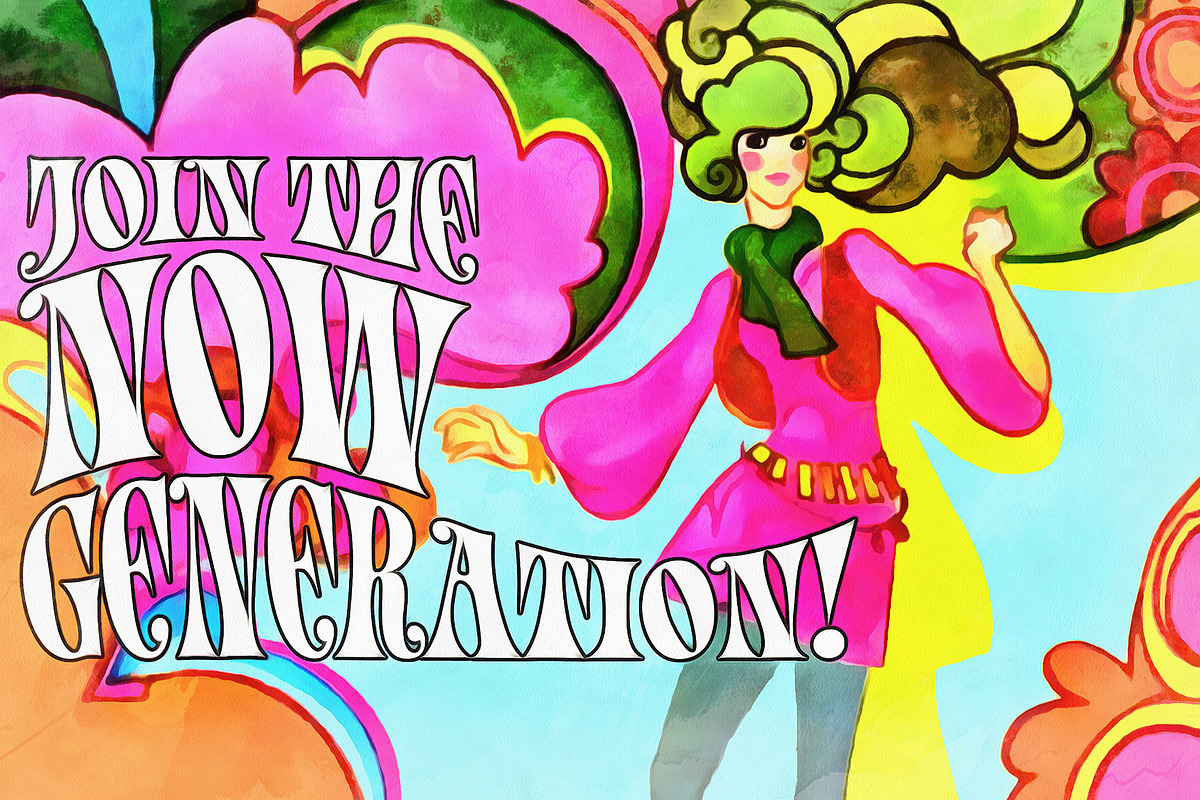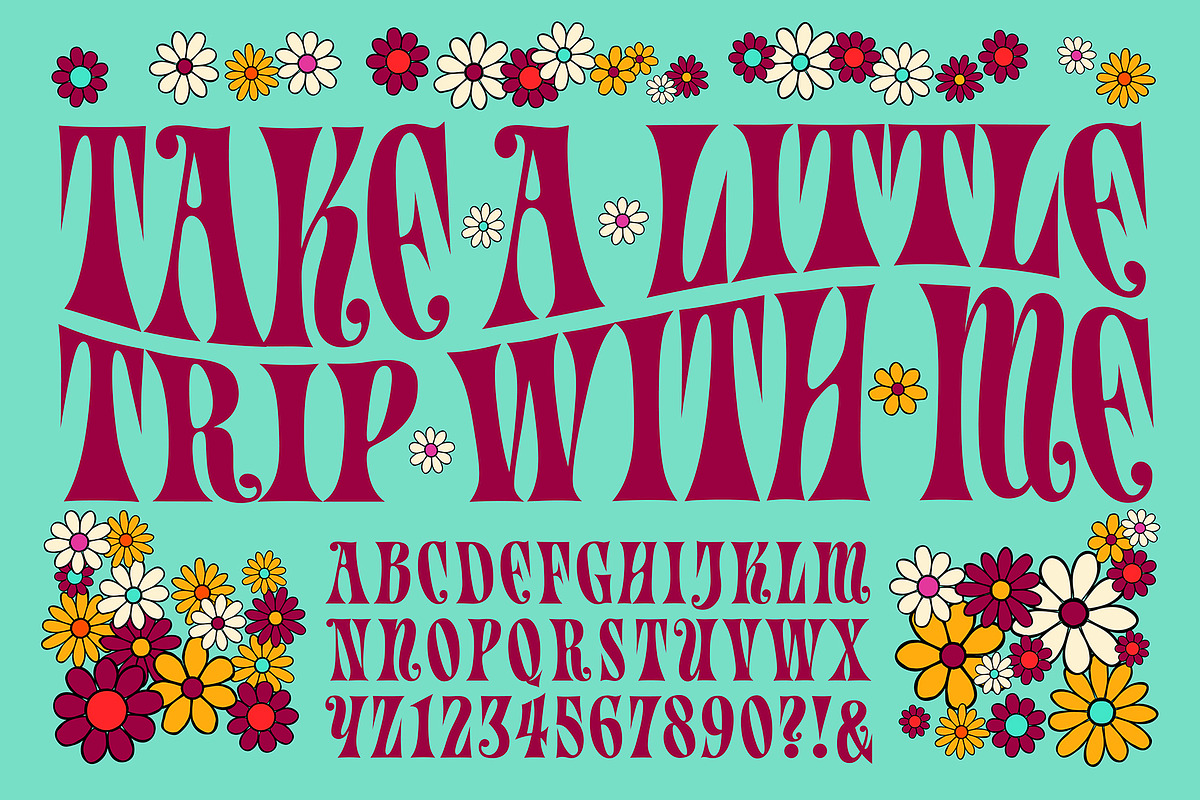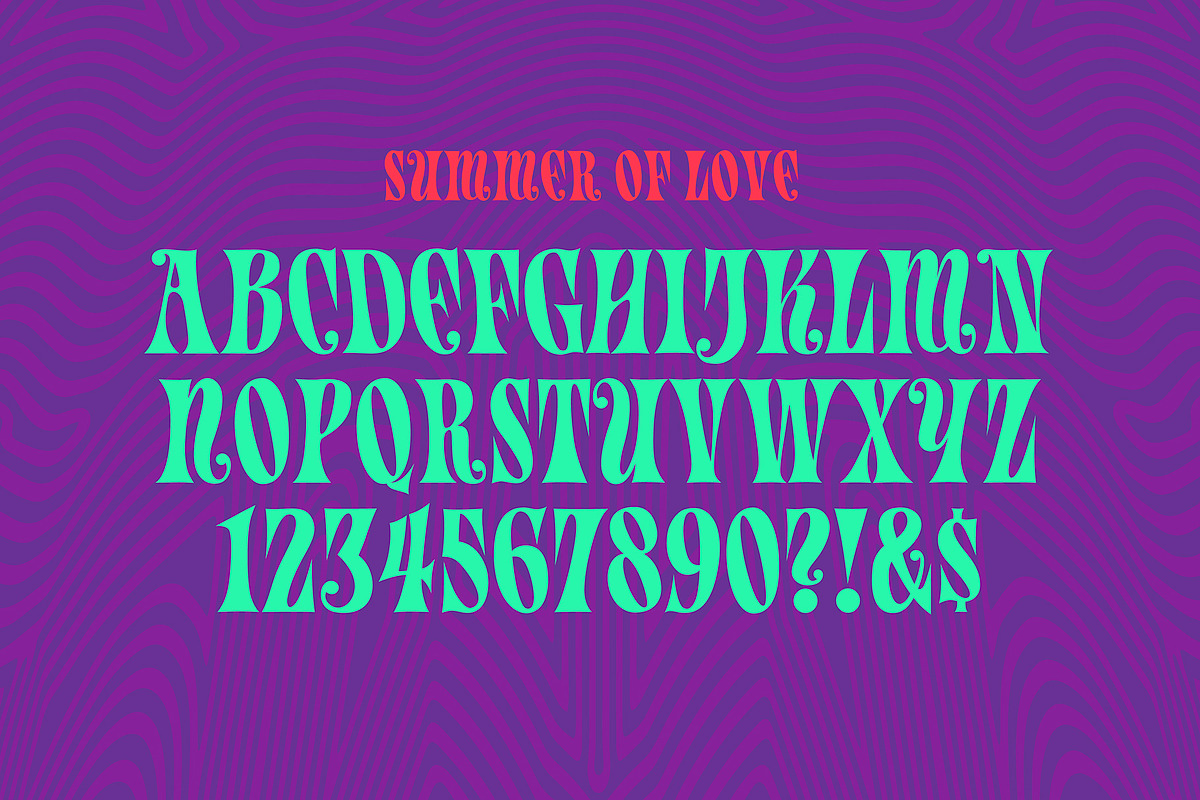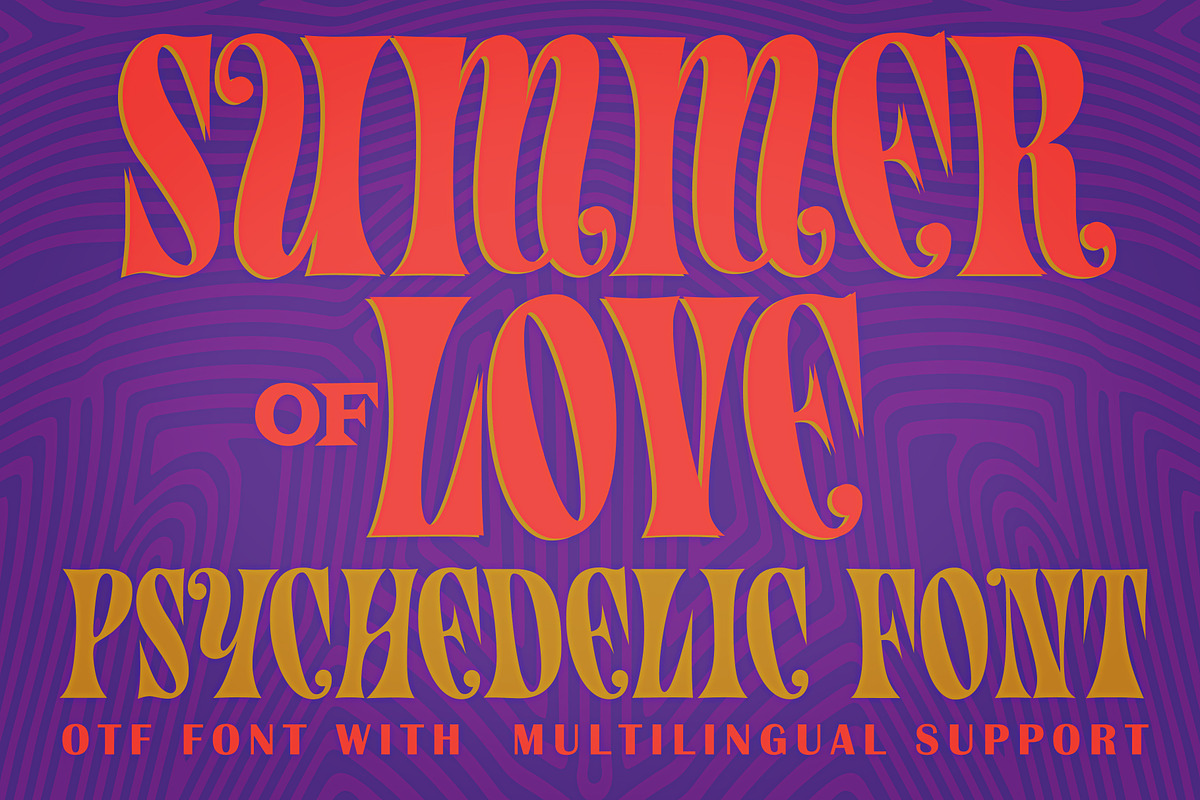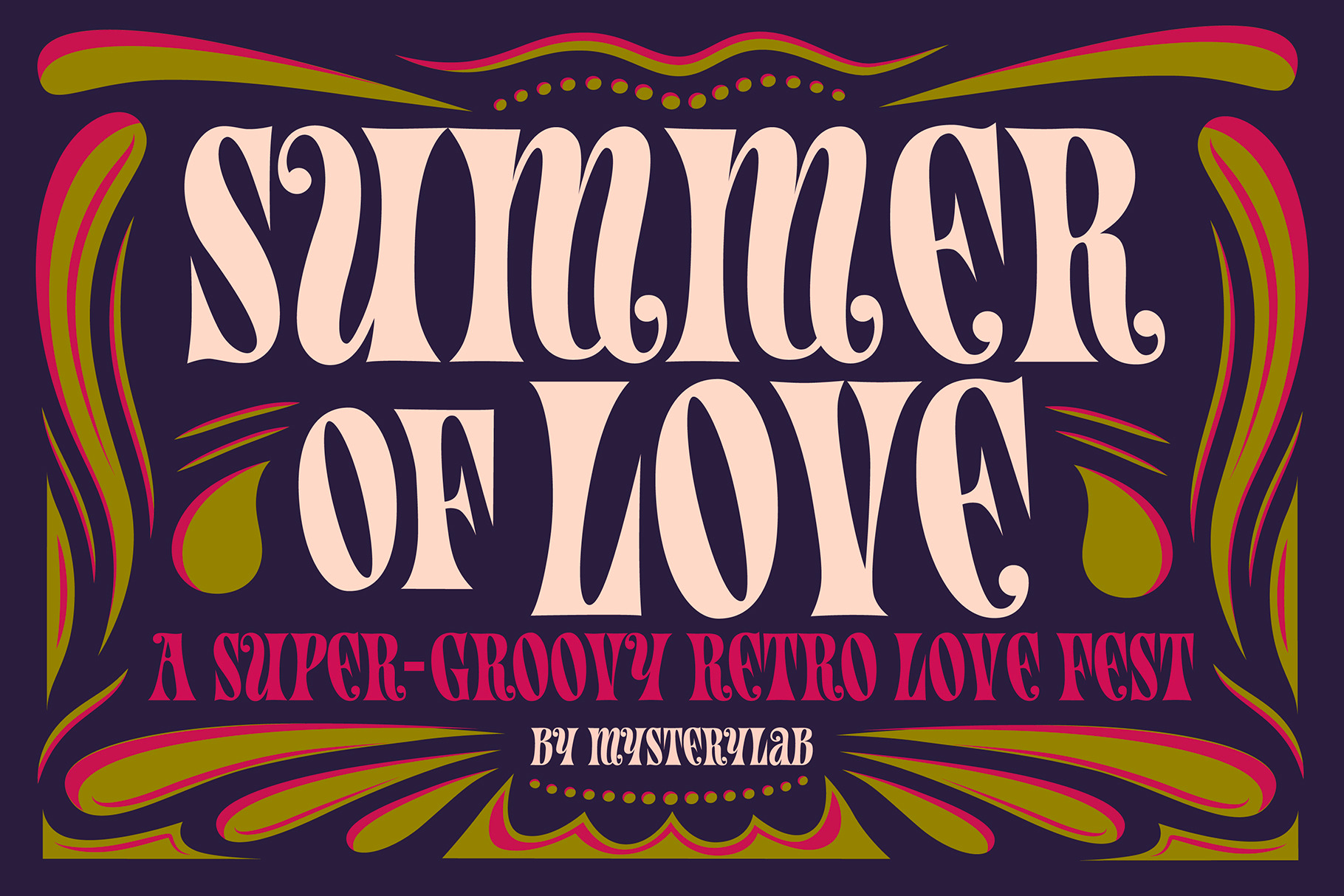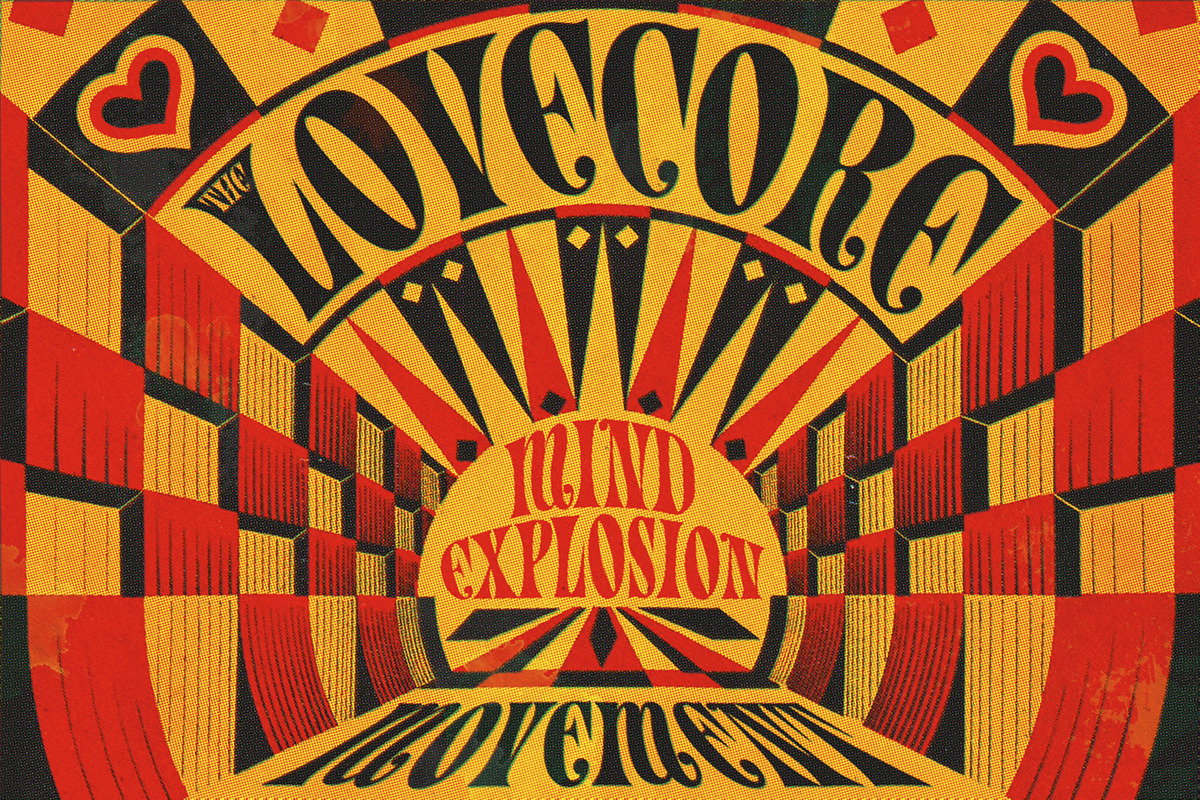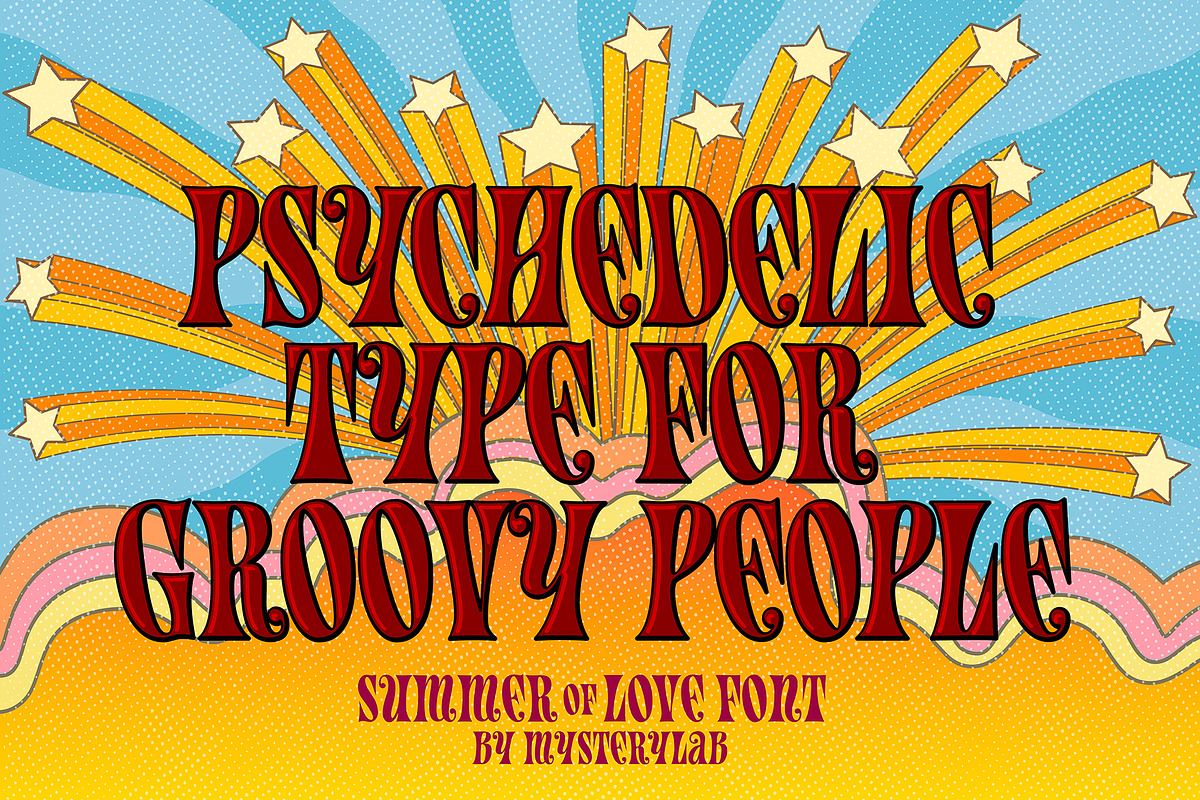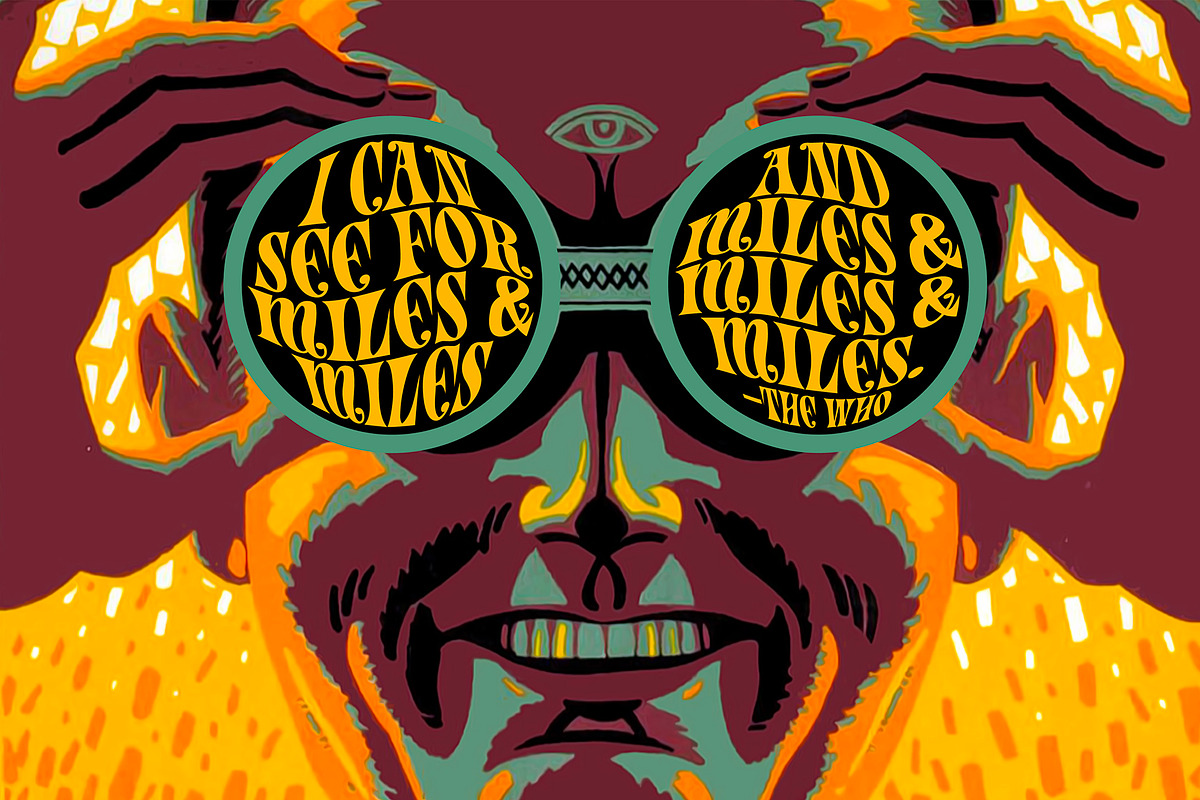
Summer of Love Psychedelic Font
SUMMER OF LOVE PSYCHEDELIC FONT
It's the sixties all over again with Summer of Love. Add just the right dose of groovyness to your retro design with this original vintage-styled font. For those who liked my earlier watercolor-effect .eps version of this alphabet — but wanted to be able to type text — here's the .otf font version with a full character set and multilingual glyphs, so you can say "Groovy baby" in many languages. This is a uni-case font with hybridized upper and lower case characters. Evoke the carefree and whimsical vibe of the psychedelic era with Summer of Love; it's pure funky fun!